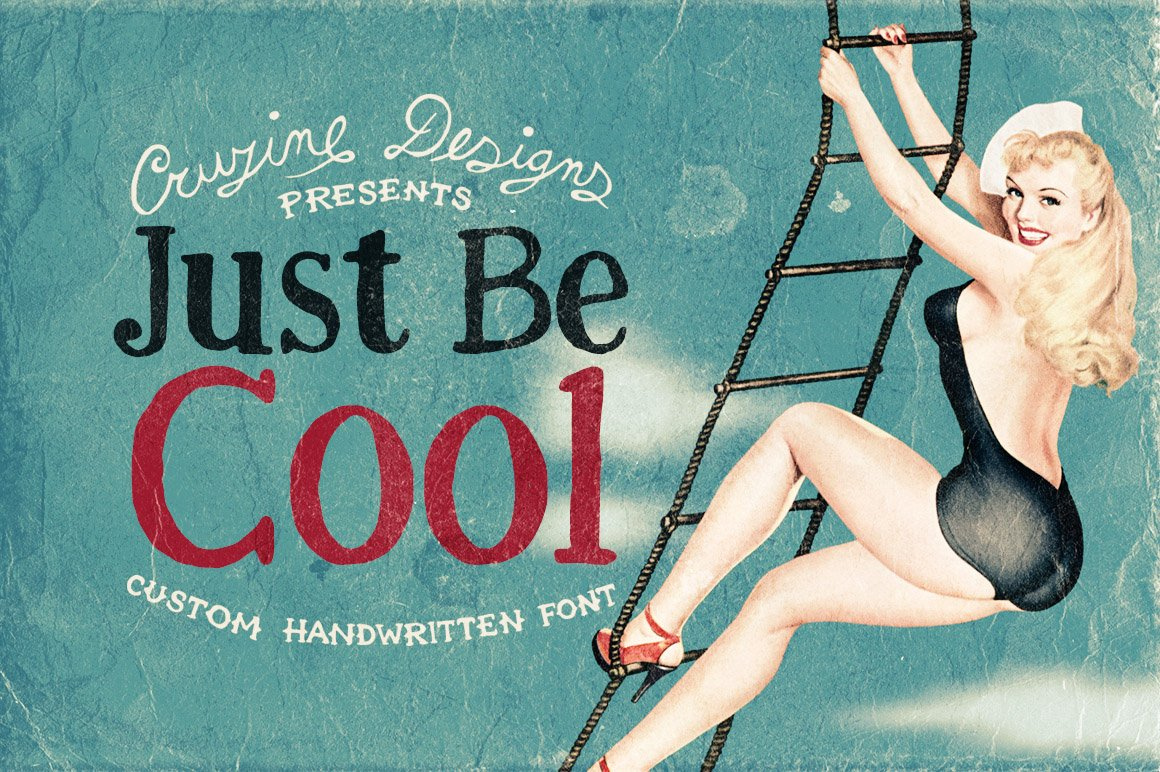
Just Be Cool Custom Font
Just Be Cool Custom Font is perfect for trendy lifestyle brands, hip streetwear companies, relaxed café signage, laid-back music venues, casual youth marketing, effortless fashion labels, chill social media graphics, cool beverage packaging, urban lifestyle campaigns, and contemporary youth culture branding.
Just Be Cool Custom Font creates excitement because it embodies the effortless confidence and relaxed sophistication of contemporary cool culture with its laid-back letterforms and chill-inspired character design. The font's smooth flow and casual aesthetic instantly convey authentic coolness and genuine confidence, making any brand appear naturally trendy and authentically cool. Its carefully crafted relaxed details and effortless character create an immediate sense of cool authenticity that captivates audiences seeking genuine style, effortless fashion, and products that celebrate the natural confidence and laid-back sophistication of being genuinely cool.
The Just Be Cool Custom Font family includes multiple weights and styles: Regular, Bold, Light, Medium, Italic, Condensed, Extended, Chill, Smooth, and Effortless versions. Each variant maintains the font's signature cool character while offering different levels of relaxed styling and casual authenticity suitable for various lifestyle and youth culture applications.